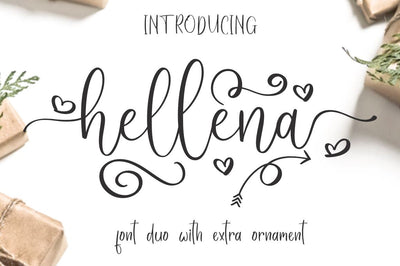
Hellena Font Duo with additional Ornament
Introducing the Hellena Font Duo with additional Ornament!
If you are needing a touch of casual chic calligraphy for your designs, this font was created for you!
Hellena Sans is beauty couple for Hellena Script.